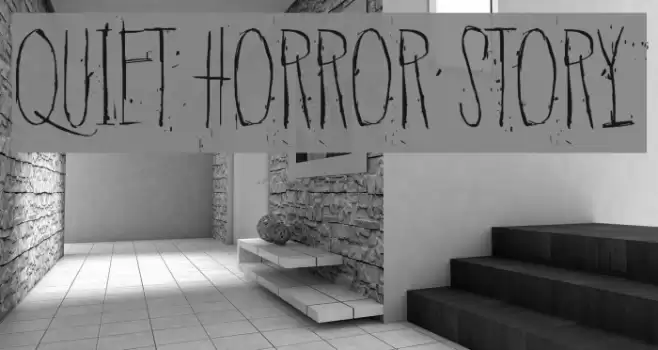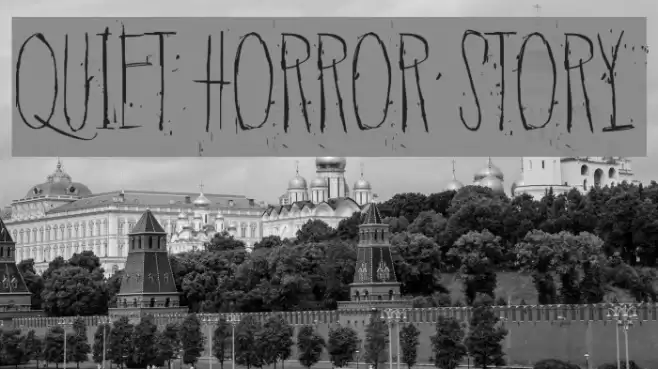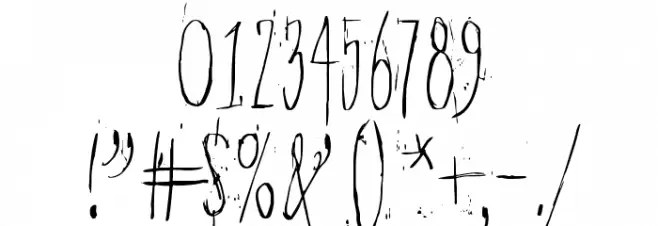
Quiet Horror Story Font
Quiet Horror Story Description
This font exudes a haunting and eerie aesthetic, characterized by its tall, narrow letterforms and irregular, distressed edges. The strokes are uneven, with a scratchy texture that gives it a hand-drawn, unsettling appearance. The uppercase and lowercase letters maintain a consistent style, with elongated verticals and sharp, angular serifs. Numbers and special characters follow the same design principles, adding to the font's cohesive yet unsettling vibe. This font is perfect for creating a chilling atmosphere in designs, making it ideal for horror-themed projects or anything requiring a spooky, mysterious touch.
A haunting, distressed font with tall, narrow letterforms and a scratchy texture from Uncategorized fonts.
- Proposed Projects: Ideal for horror-themed posters, book covers, Halloween invitations, and eerie branding.